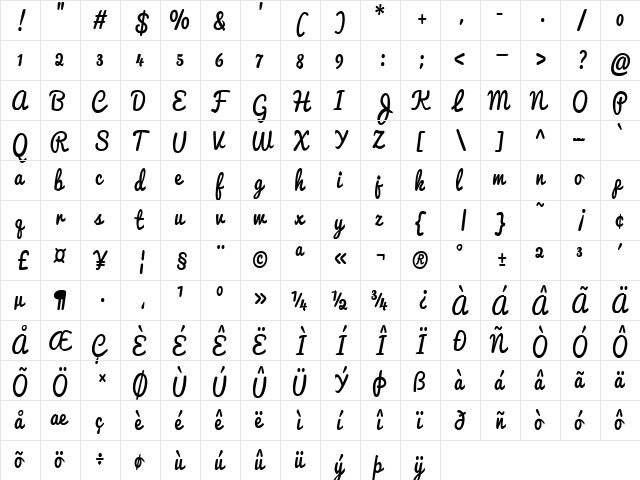
Kadungenjoy Regular
Design Context for Kadungenjoy Typeface
Kadungenjoy takes a measured approach to typography — its balanced proportions and neutral character make it a reliable workhorse for both digital and print work.
Pro Tip: Use Kadungenjoy in both headline and body roles to test its range before committing to a single application.